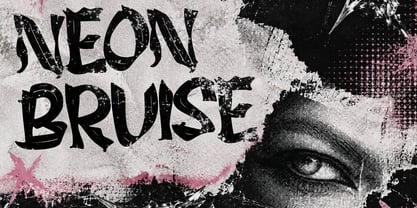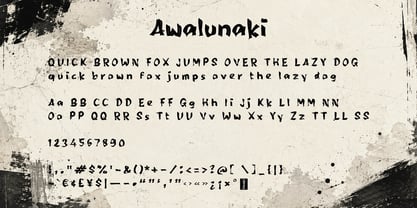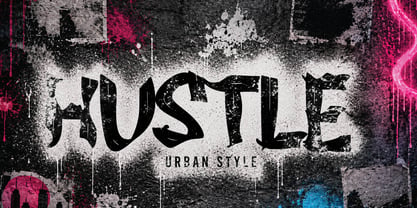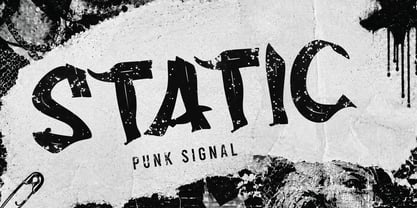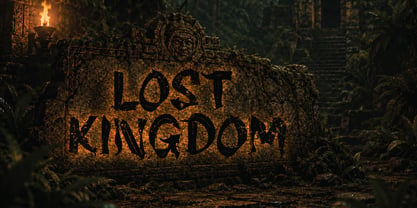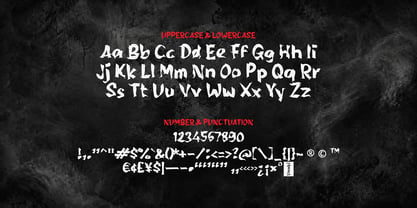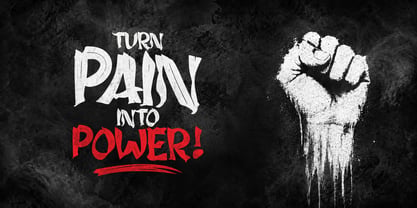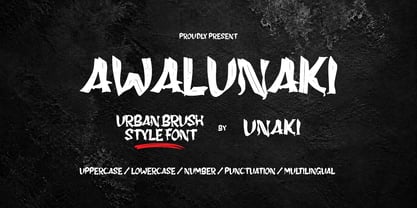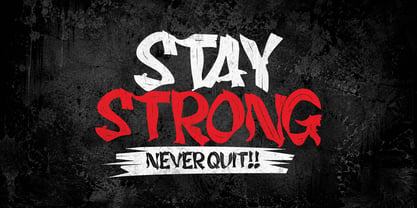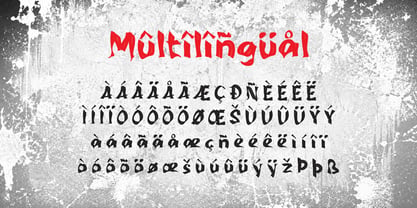
Awalunaki
by Unaki
The Awalunaki Font Family was designed by Wahyu Eka Prasetya, Tri Wahyu and published by Unaki. Awalunaki contains 2 styles and family package options. More about this family
Proudly Present Awalunaki - Display Font, created with a bold handcrafted spirit, raw texture, and untamed visual energy. Awalunaki is a loud, expressive typeface made for designers who want something fierce, unique, and unforgettable. Every letter carries an organic cut, rough edge, and gritty stamp-style finish, giving your work a powerful handmade character with a rebellious soul.
Inspired by dark tropic vibes, ancient jungle ruins, underground street culture, punk posters, and mysterious tribal energy, Awalunaki brings a strong visual punch to every design. It is not clean, not soft, and definitely not ordinary — that is exactly what makes it stand out. This font is perfect for posters, album covers, streetwear branding, horror titles, urban graphics, adventure themes, game logos, tattoo-style artwork, packaging, stickers, and any project that needs a bold voice.
With its rough distressed texture and sharp irregular shapes, Awalunaki captures the feeling of lost kingdoms, neon streets, jungle shadows, and raw creative freedom. It is expressive, imperfect, dramatic, and full of attitude — made for designs that refuse to look boring.
Designers: Wahyu Eka Prasetya, Tri Wahyu
Foundry: Unaki